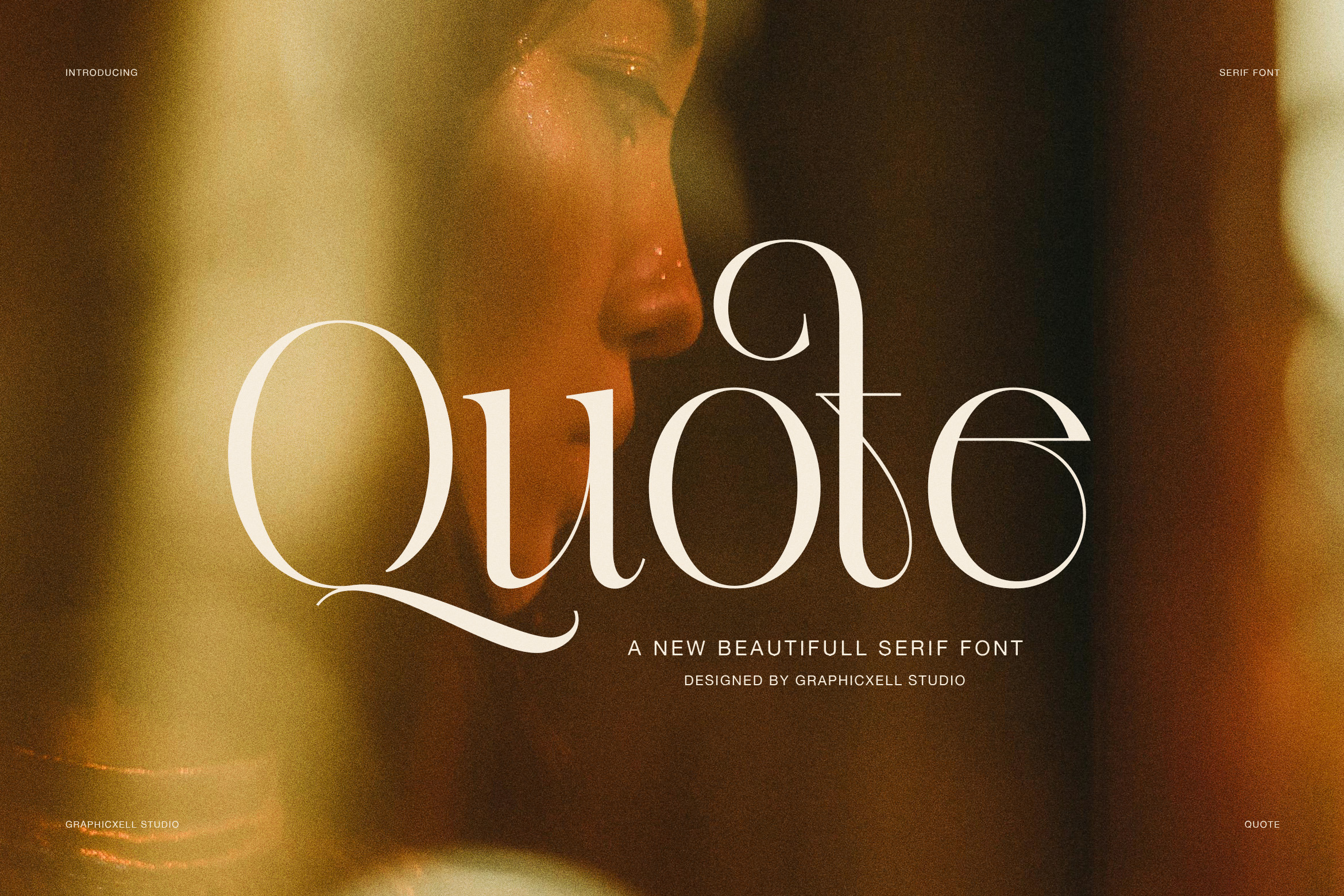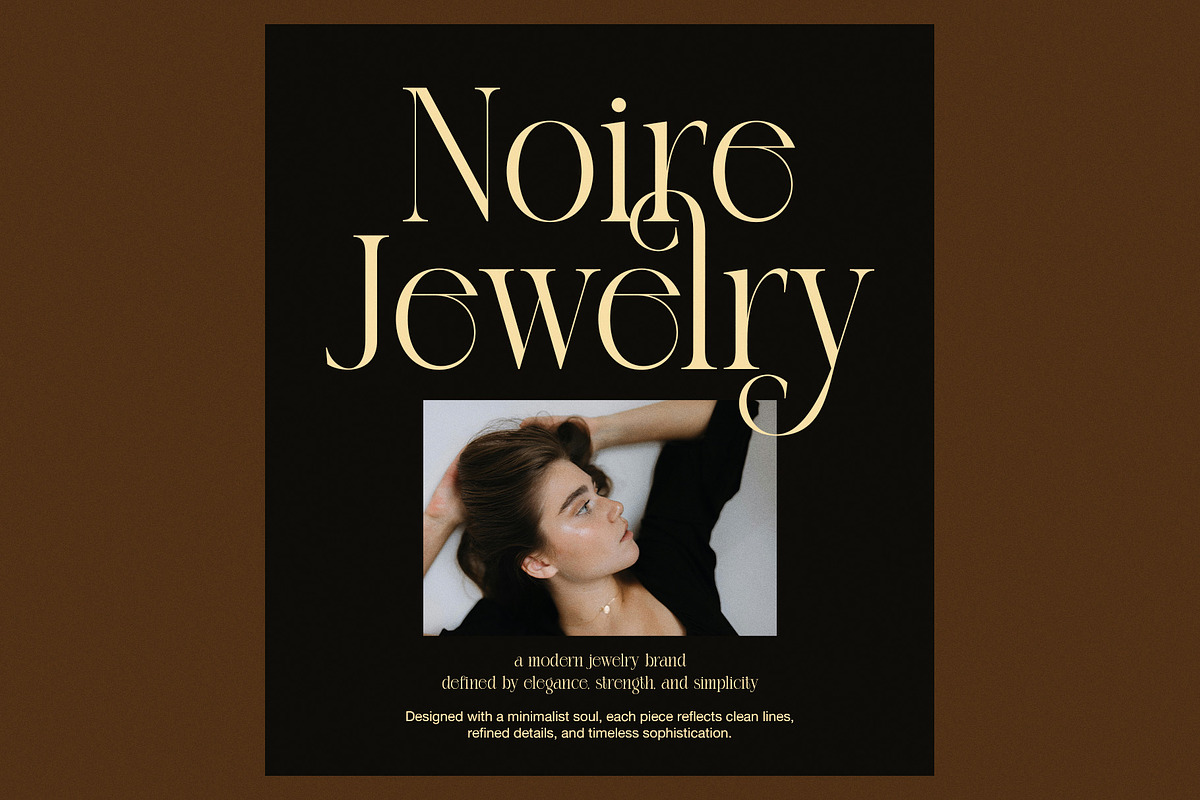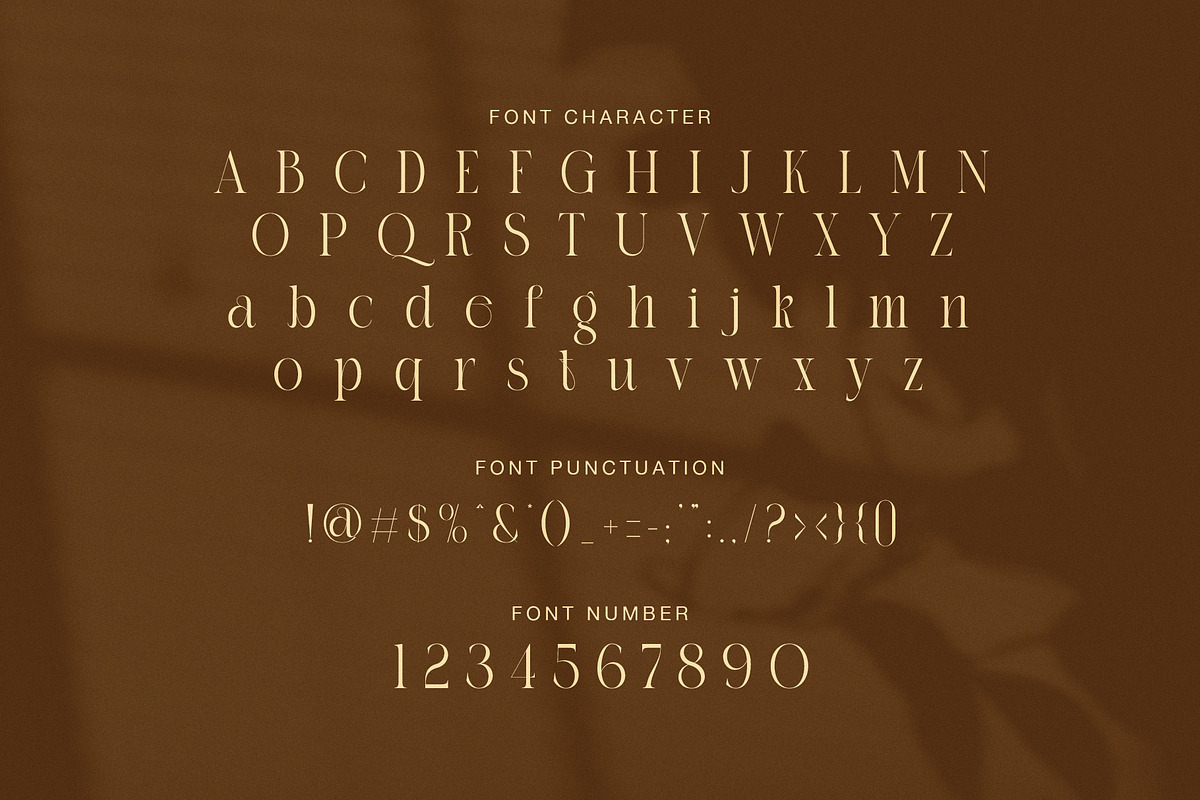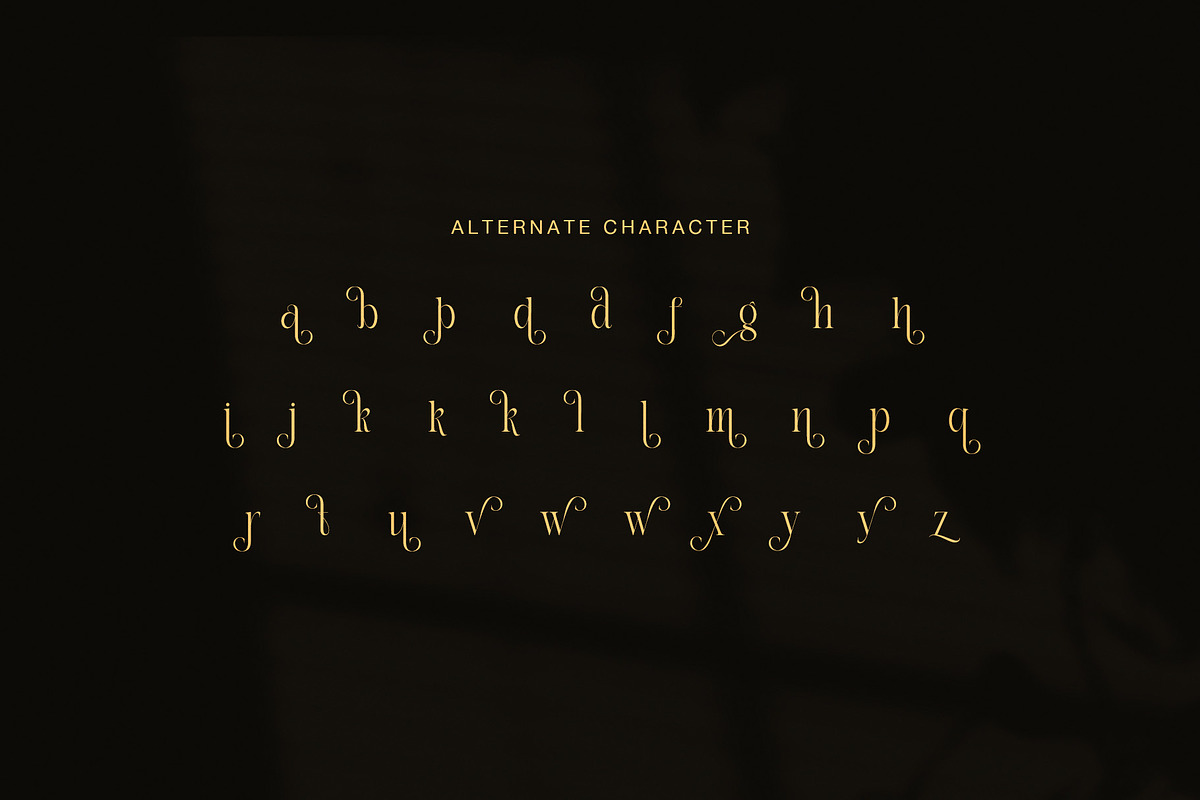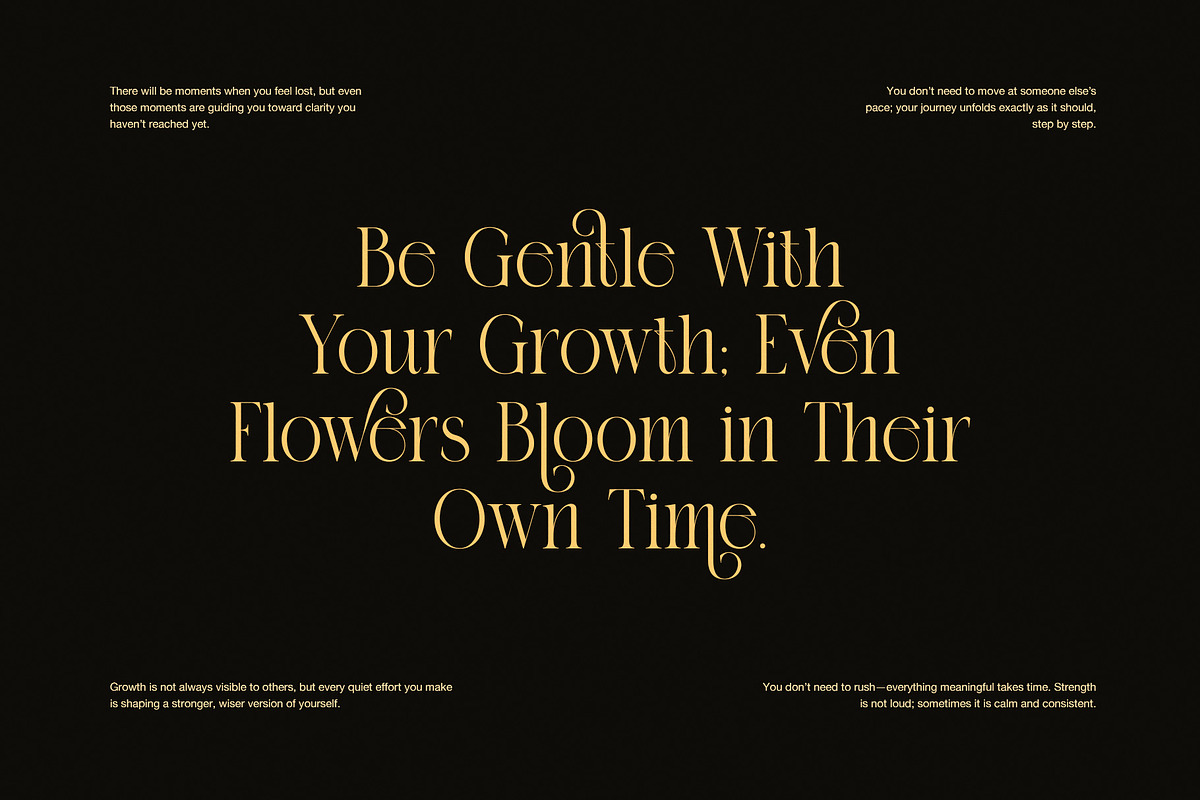
Quote Elegant Serif Font
Elegant Serif Font for Branding and Editorial Design
Quote is an elegant serif font that brings style, balance, and soft charm to modern design. Moreover, it blends classic letter shapes with smooth curves, so every word feels refined and warm. Because of that, designers can use it for luxury branding, fashion layouts, and stylish editorial work with ease.
In addition, Quote includes graceful alternates that add movement and character to titles. Therefore, logos, headlines, and packaging designs gain a personal and premium look. At the same time, the clean base letters keep text readable across many sizes. As a result, you can use this font for both large display text and short supporting lines.
Furthermore, Quote fits many creative fields. For example, it works well for beauty brands, jewelry labels, magazine covers, product packaging, and social media visuals. Since the shapes stay smooth and consistent, your layouts remain clean and professional in every format.
Why designers choose Quote
This elegant serif font supports creative freedom while keeping layouts neat. Also, it saves time because it works well in many design styles.
Main features and benefits:
Elegant serif letterforms with soft curves
Stylish alternates for expressive titles
Clean structure for easy reading
Strong contrast for luxury layouts
Great balance between classic and modern style
Works well for print and digital use
Fits branding, logos, packaging, and editorials
Easy to pair with simple sans fonts
Moreover, Quote helps brands build a strong visual voice. Instead of loud shapes, it uses calm beauty and gentle detail. Because of that, your design feels confident, not forced. Also, it supports long-term branding since the style stays timeless.
Finally, if you want a serif font that feels elegant yet friendly, Quote gives you that balance. It supports creative ideas, improves visual quality, and adds value to every project. Therefore, designers who work with fashion, beauty, lifestyle, and premium products will find this font very useful.